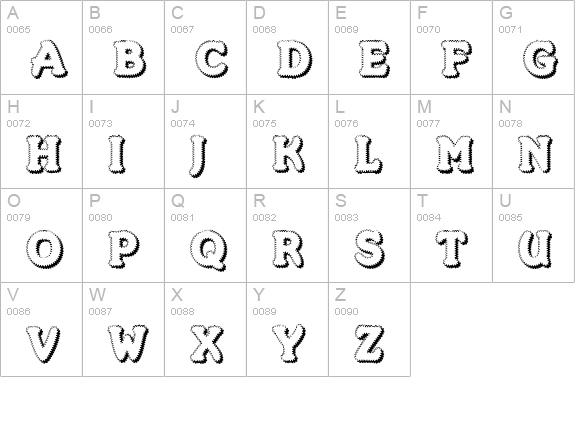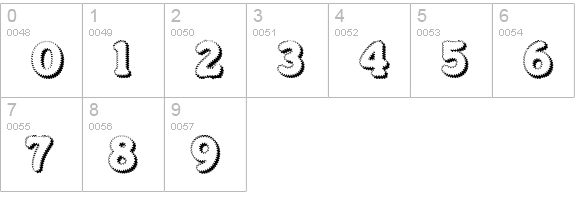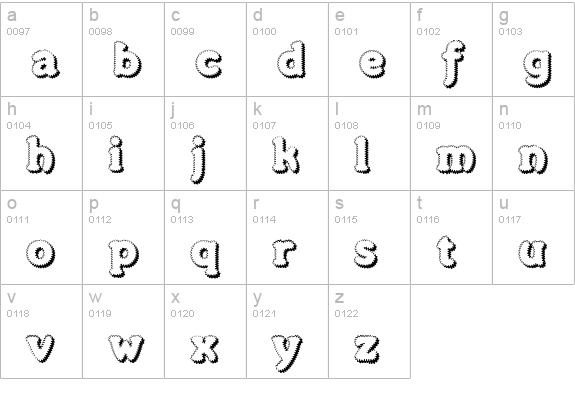
Merkin Foo Font Details
Introducing the exquisite Merkin Foo font, a visually striking typeface that seamlessly combines elegance and modernity. Its sleek and stylish design makes it perfect for a wide range of creative projects, from branding to editorial design to social media graphics. The Merkin Foo font exudes a sense of sophistication and charm, making it a versatile choice for any design endeavor. What sets the Merkin Foo font apart is its unique blend of classic and contemporary elements, resulting in a truly timeless aesthetic. With its clean lines and graceful curves, this font is sure to make a lasting impression on any audience. Whether you're creating an elegant logo, designing a sleek website, or crafting eye-catching posters, the Merkin Foo font will elevate your work to new heights. Best of all, the Merkin Foo font is available for free download at FontsMarket.com. This means that you can easily access this stunning typeface and incorporate it into your projects without any hassle. Don't miss out on the opportunity to enhance your designs with the Merkin Foo font – download it today and take your creativity to the next level!